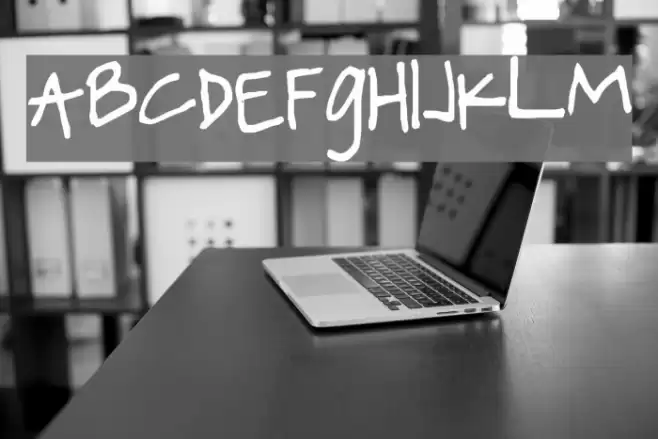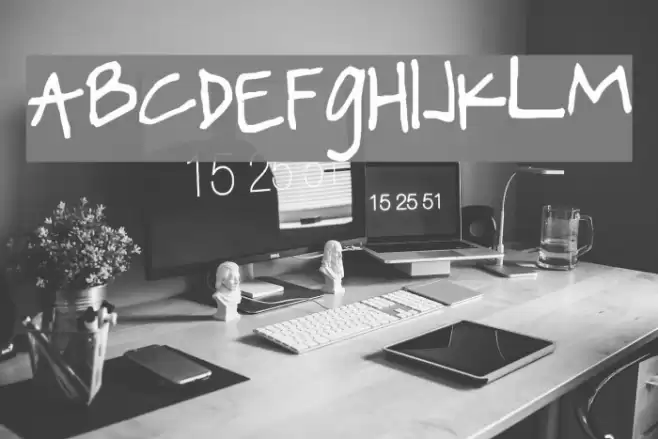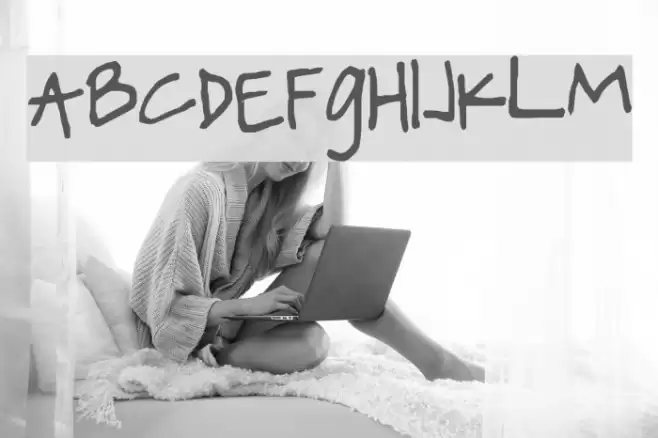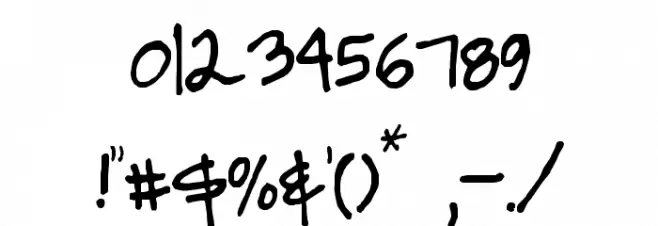
This font exudes a casual and playful handwritten style, characterized by its uneven strokes and organic flow. The letters vary in size and slant, giving it a natural, authentic feel reminiscent of personal handwriting. The uppercase letters are bold and prominent, while the lowercase letters maintain a consistent, flowing baseline. The numbers and special characters are crafted with the same informal touch, making the font suitable for projects that require a personal, approachable aesthetic. Its unique style is perfect for adding a human touch to digital content.
A casual, playful handwritten font with an organic flow from Uncategorized fonts.
- Proposed Projects: Ideal for greeting cards, personal blogs, informal invitations, and creative branding.
- Overall Style: Casual
- Use Case: Logos, Headlines, Informal Text